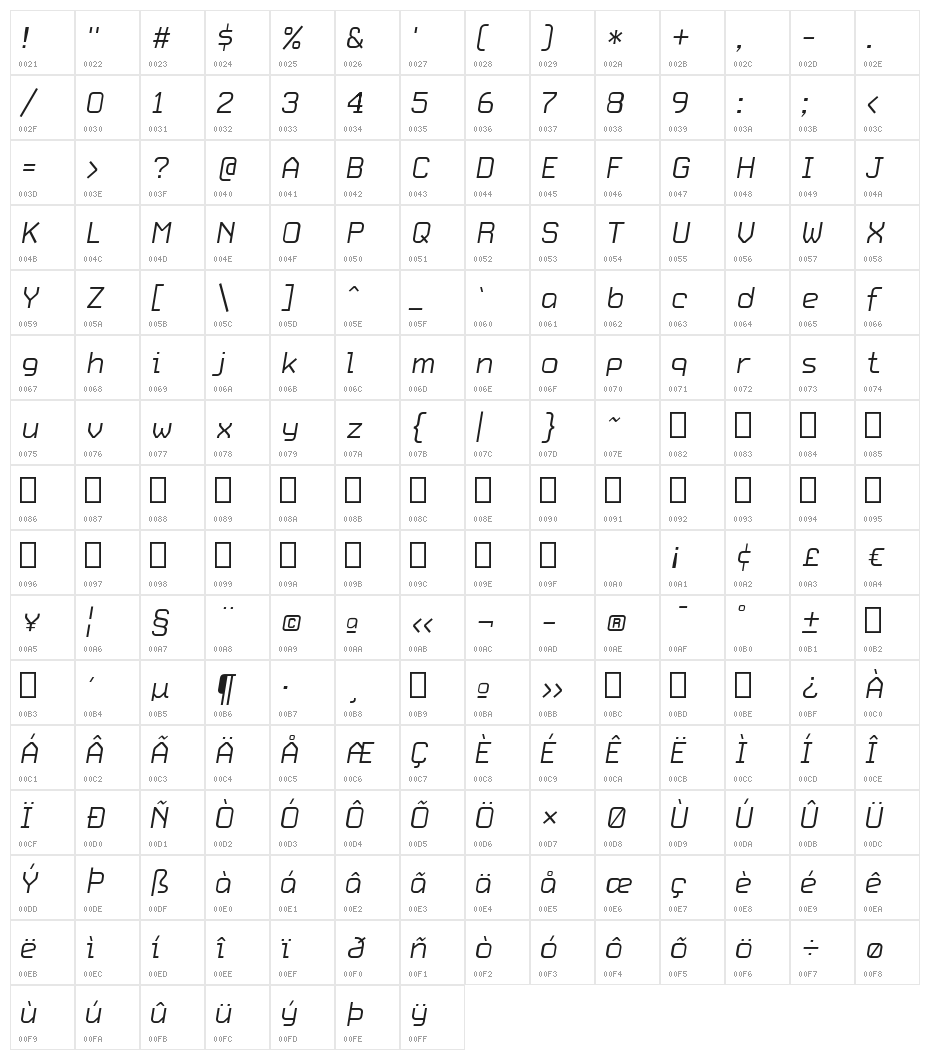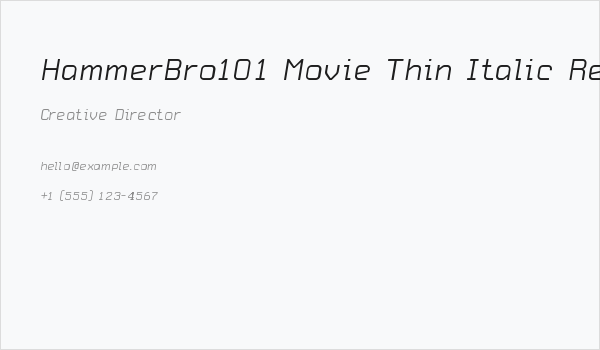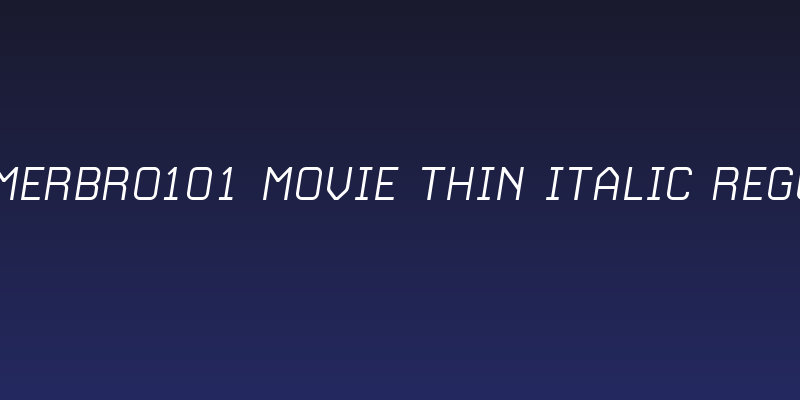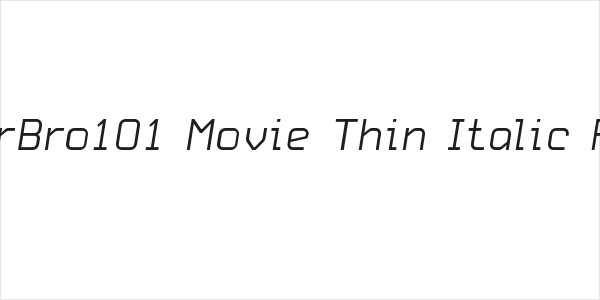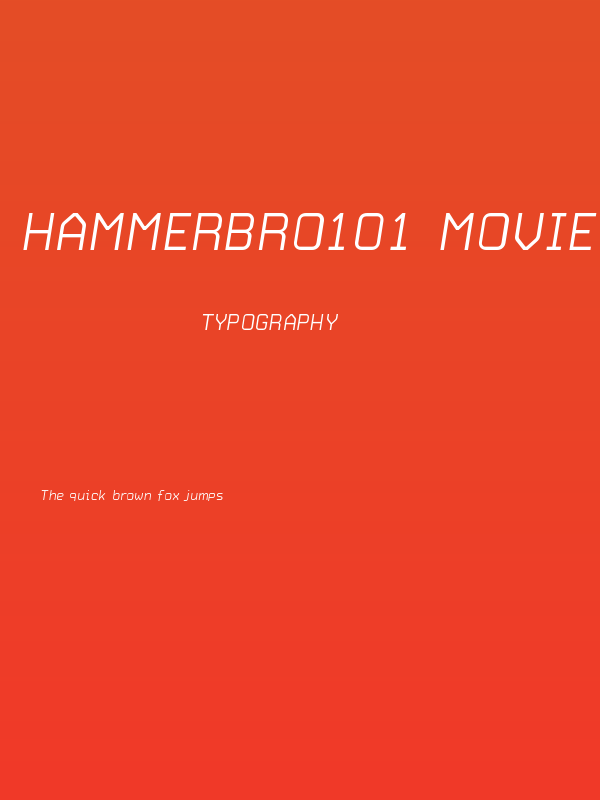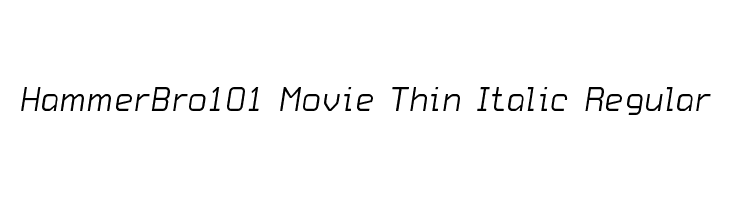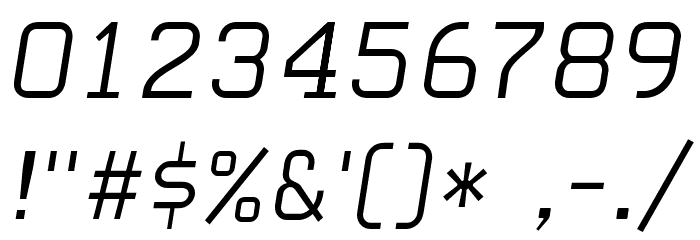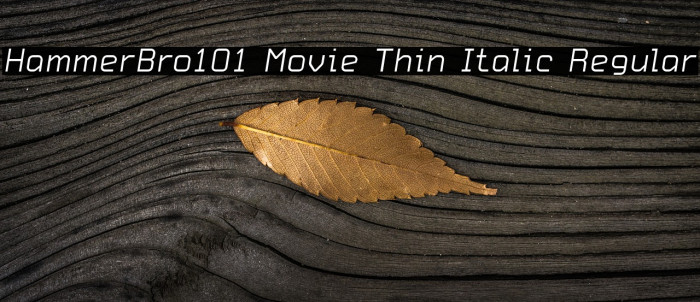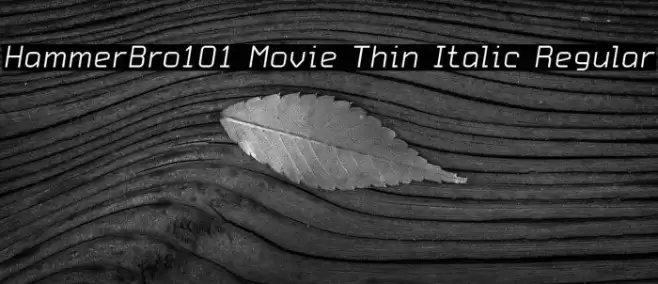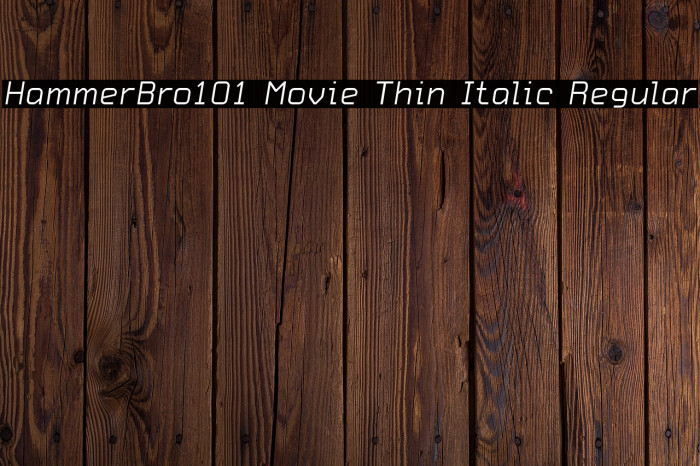
HammerBro101 Movie Thin Italic Regular Font
HammerBro101 Movie Thin Italic Regular Description
This font features a sleek, modern design with a thin, italicized style. The characters are slightly slanted, giving a dynamic and forward-moving appearance. The strokes are consistent and clean, with a uniform thickness that maintains readability. The uppercase and lowercase letters are well-proportioned, and the numerals are distinct and clear. Special characters are included, maintaining the same stylistic elements as the alphabet. The overall look is minimalistic yet sophisticated, making it suitable for contemporary design projects.
| Use Case | Headlines, Logos, Editorial design |
| Proposed Projects | Ideal for modern branding, tech-related projects, sleek product packaging, or contemporary editorial design. |